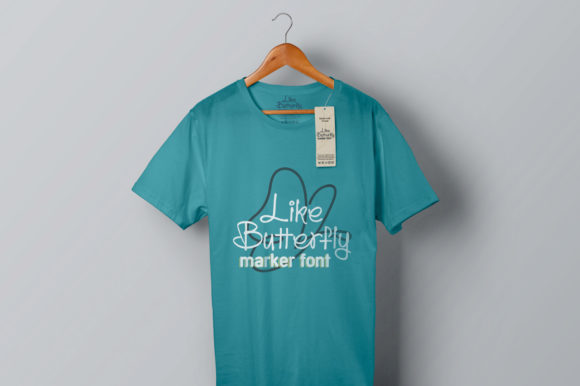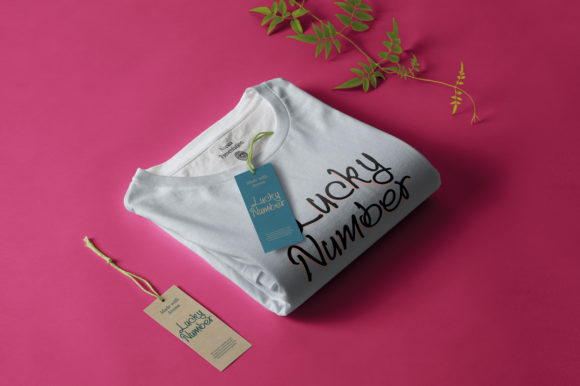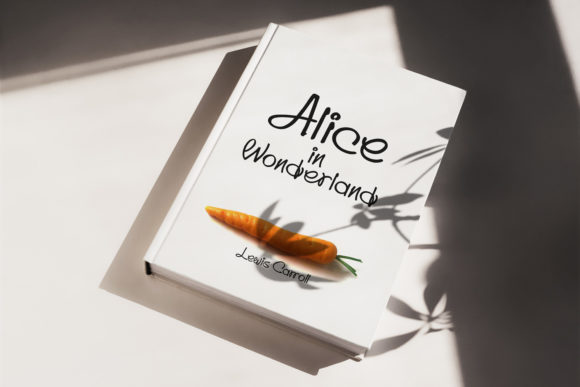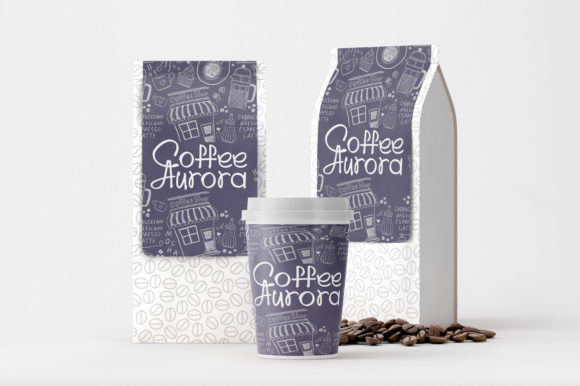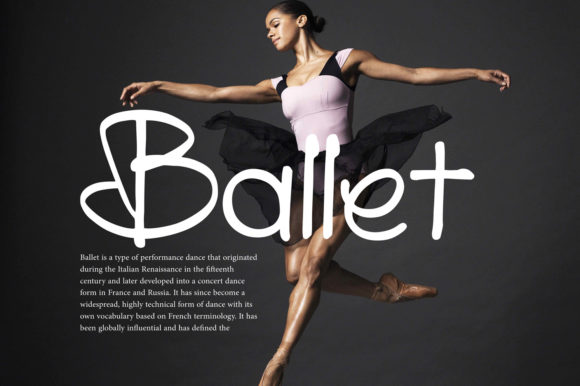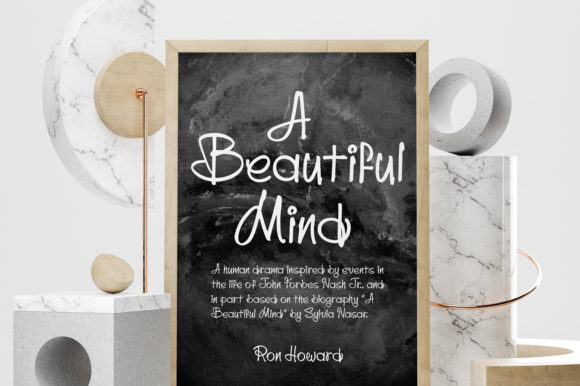
Introducing Avessa Font: The Playful Casual Marker Font for Elegant Headlines
Are you tired of using the same old fonts for your designs? Look no further than the Avessa Font, a playful casual marker font that brings a naturally handwritten marker look to your work while maintaining crisp legibility. In this article, we’ll dive into the features and benefits of the Avessa Font, and explore how it can elevate your designs to the next level.
A Playful yet Elegant Font
The Avessa Font is designed to bring a touch of playfulness to your designs while still maintaining an air of elegance. Its casual marker look makes it perfect for creating eye-catching titles, distinguished brands, or short blocks of text. Whether you’re working on a logo, a headline, or a social media post, the Avessa Font is sure to make your text stand out.
Crisp Legibility and Handwritten Charm
One of the standout features of the Avessa Font is its ability to balance handwritten charm with crisp legibility. The font’s natural, flowing lines give it a warm and approachable feel, while its clear and concise letterforms ensure that your text is easy to read. This makes it perfect for designs where you want to make a statement without sacrificing readability.
Built for Elegant Headlines and Eye-Catching Titles
The Avessa Font is specifically designed for creating elegant headlines and eye-catching titles. Its bold and expressive letterforms make it perfect for grabbing attention and drawing the reader in. Whether you’re working on a magazine cover, a website header, or a social media post, the Avessa Font is sure to make your title stand out.
Ligatures and Pairing Options
The Avessa Font comes with a wonderful complement of ligatures, which add an extra touch of elegance and sophistication to your designs. Ligatures are special characters that combine two or more letters into a single glyph, creating a more fluid and natural look. The Avessa Font also pairs beautifully with sans serif typefaces, making it easy to mix and match fonts to create a unique and visually appealing design.
The Avessa Font is a versatile and practical choice for designers and crafters of all levels. Whether you’re working on a personal project or a client’s design, the Avessa Font is sure to bring a touch of elegance and sophistication to your work. Its playful yet professional look makes it perfect for a wide range of design applications, from logos and branding to packaging and marketing materials.
Tips for Using the Avessa Font
Here are a few tips for getting the most out of the Avessa Font:
- Use the Avessa Font for headlines and titles to add a touch of elegance and sophistication to your designs.
- Pair the Avessa Font with sans serif typefaces to create a unique and visually appealing design.
- Take advantage of the Avessa Font’s ligatures to add an extra touch of elegance to your designs.
The Avessa Font is a playful casual marker font that brings a naturally handwritten marker look to your designs while maintaining crisp legibility. With its elegant and sophisticated look, it’s perfect for creating eye-catching titles, distinguished brands, or short blocks of text. Whether you’re a designer or crafter, the Avessa Font is sure to become a valuable addition to your font collection.